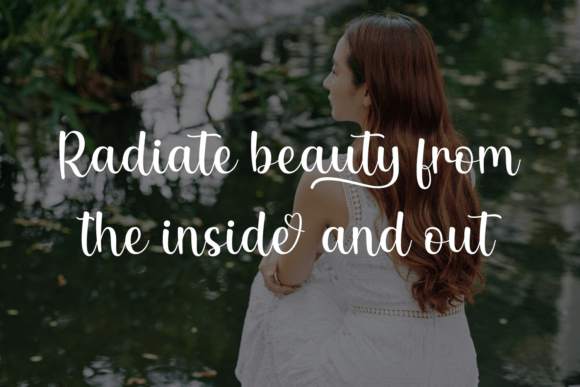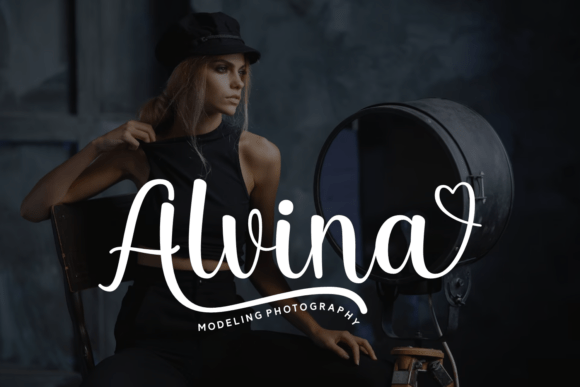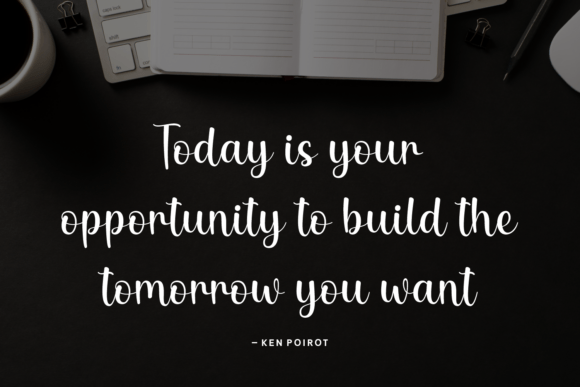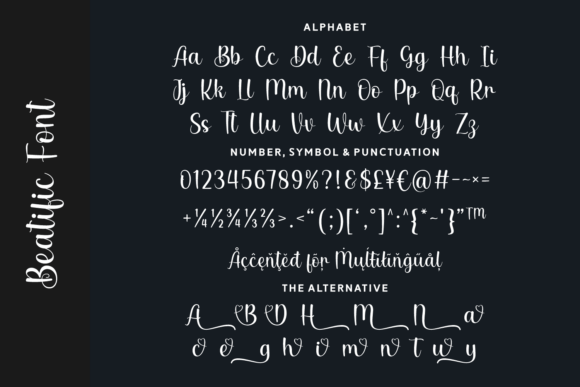
Discover the Magic of Beatific Font
Have you ever sat down with a blank sheet of paper and a pen, feeling the urge to create something special for a loved one? Maybe it was a birthday card for your child, a love letter to your partner, or a wedding invitation to share with friends and family. Whatever the occasion, the right font can make all the difference in conveying your emotions and adding a personal touch to your design.
Enter the Beatific Font, a charming script calligraphy font adorned with heart accents that exudes warmth and joy. This beautiful font is perfect for designers looking to add a whimsical touch to their projects, from greeting cards and love notes to wedding stationery and children’s products. With its sweet and playful nature, the Beatific Font is a valuable addition to any designer’s toolkit, allowing them to create designs that truly capture the essence of their message.
Beatific Font Key Features
- Font Family: A unique, high-quality script font designed for elegant and sophisticated typography.
- Character Set: Comprises over 800 characters, including uppercase and lowercase letters, numerals, punctuation marks, and special characters.
- Unique Characteristics: Features a distinctive, flowing script style with subtle flair and connection between letters, making it ideal for wedding invitations, luxury branding, and high-end packaging design.
Beatific Font Review
I’ve had the chance to work with the Beatific font, and I must say, it’s a real treat. Here are some things that ✨ shine:
- The unique blend of modern and traditional styles creates a visually striking effect.
- The font’s high contrast and bold lines make it perfect for use in headings and titles.
- Beatific is highly legible, even at smaller font sizes, which is a must-have for any font in my book.
However, I do have to mention some limitations ⚠️:
- The font may be a bit too ornate for some designs, and it can feel overwhelming if used in large blocks of text.
- The font family is relatively small, with only a few weights and styles available.
- Some of the more decorative elements can feel a bit too playful for more serious or corporate designs.
Overall, I think Beatific is a great addition to any designer’s toolkit. It’s perfect for projects that require a touch of whimsy and flair. However, it may not be the best choice for more straightforward or serious designs.
The Beatific font is ideal for:
- Personalized gifts and cards
- Brand logos and typography
For optimal results, use the Beatific font in conjunction with elegant and cursive designs. Experiment with different font sizes, colors, and arrangements to achieve a unique and eye-catching look.